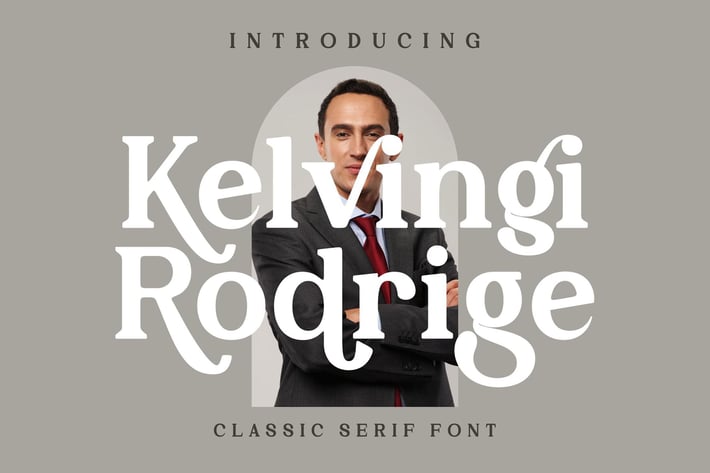
Kelvingi Rodrige Serif Font
Kelvingi Rodrigé is a bold classic serif font crafted to deliver strong character, premium elegance, and timeless appeal. With its stylish curves and confident presence, this serif typeface is ideal for professional branding, editorial layouts, logos, and polished business visuals. It brings a refined, authoritative tone to both digital and printed projects.
Classic serif style with modern refinements
Strong, professional letterforms
Smooth curves for premium visual appeal
Excellent readability for headlines & branding
Versatile for corporate, editorial, and creative use
Professional branding & identity
Business and corporate design
Editorial layouts & magazines
Logos & logotypes
Posters & marketing materials
Social media and promotional graphics
Classic strength with a modern, refined voice.